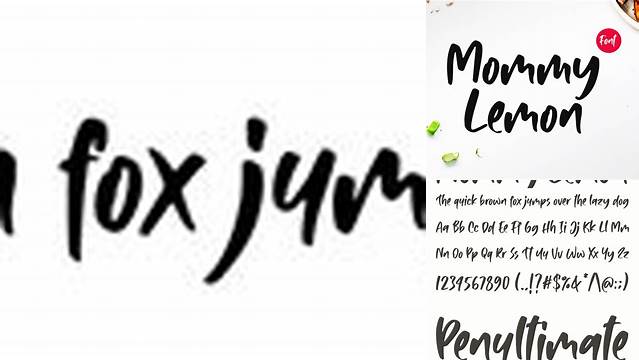
Hey guys! Are you on the hunt for that perfect font to add a touch of whimsical charm to your designs? Look no further! In this comprehensive guide, we're diving deep into everything you need to know about the Mommy Lemon Regular Font, including where to find it, how to use it, and why it's such a fantastic choice for a variety of projects. Whether you're a seasoned designer or just starting out, this font is sure to become a staple in your creative toolkit. So, let's get started and explore the delightful world of Mommy Lemon!
When you're looking for the perfect font, it's like searching for the right ingredient to complete a recipe. The Mommy Lemon Regular Font is that special ingredient that can add a unique flavor to your designs. It's a typeface that effortlessly blends playfulness with readability, making it ideal for a wide array of applications. Think about it – from children’s books to cheerful greeting cards, this font has the potential to transform your work from ordinary to extraordinary. But what exactly makes Mommy Lemon so special? Well, it's the charming curves, the friendly demeanor, and the overall sense of joy it exudes. It’s a font that doesn’t take itself too seriously, yet it’s versatile enough to be used in professional settings. This balance is what sets it apart from many other fonts out there. Plus, the fact that you can often find it for free makes it even more appealing. Who doesn’t love a high-quality font that doesn’t break the bank? We'll delve into where you can safely download it later in this guide, ensuring you avoid any potential pitfalls like malware or licensing issues. Trust me, finding a reliable source is key, and we've got you covered.
What is Mommy Lemon Regular Font?
The Mommy Lemon Regular Font is a delightful typeface characterized by its playful and friendly appearance. It features rounded edges and a whimsical design, making it an excellent choice for projects that require a touch of warmth and personality. This font is particularly well-suited for children's books, greeting cards, invitations, and other designs where a lighthearted feel is desired. Its unique charm lies in its ability to balance readability with a distinct, memorable aesthetic.
The beauty of the Mommy Lemon Regular Font lies in its versatility and approachability. It's not just another run-of-the-mill font; it's a typeface with character. Imagine using it for a child's birthday invitation – the playful curves and friendly appearance instantly set the tone for a fun celebration. Or picture it gracing the pages of a children's book, where its readability ensures young readers can easily follow along with the story, while its whimsical design keeps them engaged. But don’t think its uses are limited to just children's projects. Mommy Lemon can also be incredibly effective in branding materials for businesses that want to project a warm, welcoming image. Think of a local bakery or a handmade crafts store – the font could be the perfect way to convey a sense of friendliness and approachability. What truly distinguishes this font is its ability to evoke a sense of nostalgia and comfort. It’s the kind of font that makes you feel like you’re receiving a handwritten note from a dear friend. This emotional connection is a powerful tool in design, and Mommy Lemon wields it masterfully. Its rounded edges and soft lines create a visual harmony that’s pleasing to the eye, making it a joy to read and work with. Plus, the fact that it's a regular font means it’s incredibly versatile and can be used in a wide range of sizes and contexts without losing its clarity or charm. So, whether you’re designing a logo, creating marketing materials, or simply adding a touch of personality to your personal projects, Mommy Lemon is a fantastic choice that won’t disappoint.
Key Features of Mommy Lemon Regular Font
The Mommy Lemon Regular Font boasts several key features that make it a standout choice for designers. Its rounded edges give it a soft and friendly appearance, while its clear and legible letterforms ensure readability across various sizes and applications. The font also includes a full set of uppercase and lowercase letters, numerals, and punctuation marks, providing designers with a comprehensive toolkit for their projects. Furthermore, its versatility allows it to be used effectively in both print and digital media.
Let's dive deeper into what makes the Mommy Lemon Regular Font a true gem in the world of typography. The first thing you’ll notice is those beautifully rounded edges. They’re not just a stylistic choice; they’re a key element in the font’s overall friendly and approachable feel. This softness is what allows Mommy Lemon to shine in projects that require a touch of warmth and personality. But don’t let its playful appearance fool you – this font is also incredibly practical. The clear and legible letterforms are a testament to its thoughtful design. Each character is carefully crafted to ensure it’s easily readable, whether you’re using it in a large headline or in smaller body text. This readability is crucial, especially when you’re working on projects that need to convey information clearly and effectively. Think about it – a font that’s both beautiful and functional is a rare find, and Mommy Lemon ticks both boxes with ease.
Another feature that sets Mommy Lemon apart is its comprehensive character set. It’s not just limited to the basic alphabet; you get a full suite of uppercase and lowercase letters, numerals, and punctuation marks. This means you have everything you need to create complete and polished designs, without having to hunt for supplementary fonts or symbols. It’s a huge time-saver and allows for greater consistency in your work. And let’s not forget its versatility across different media. The Mommy Lemon Regular Font is just as effective in print as it is in digital formats. Whether you’re designing a poster, a website, or a social media graphic, this font will maintain its charm and readability. This adaptability makes it an invaluable asset in any designer’s toolkit. So, in a nutshell, the key features of Mommy Lemon – its rounded edges, clear letterforms, comprehensive character set, and versatility – combine to make it a font that’s not only aesthetically pleasing but also incredibly practical and user-friendly. It’s a font that’s designed to make your creative process smoother and your final product more impactful.